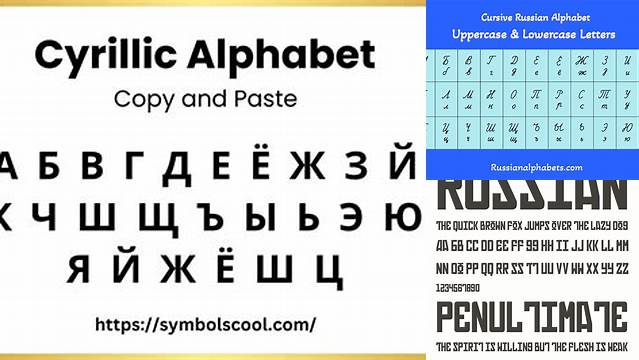
Russian Fonts: Copy & Paste Cyrillic Text Easily
Are you looking to add a touch of Russian flair to your digital content? Whether you're crafting social media posts, designing graphics, or writing documents, using Russian fonts can make your text stand out. But how do you actually use these fonts if you don't have a Russian keyboard or the fonts installed on your system? That's where the magic of "copy and paste" comes in! This comprehensive guide will walk you through everything you need to know about using Russian fonts, even if you're a complete beginner. We'll cover various online tools, character sets, and tips for ensuring your text looks perfect. So, let's dive in and explore the world of Russian fonts together!
Why Use Russian Fonts?
Before we jump into the how-to, let's quickly discuss why you might want to use Russian fonts in the first place. The Cyrillic alphabet, used in Russian and many other Slavic languages, has a distinct and elegant look. Using Russian fonts can instantly add a unique and eye-catching element to your designs. Imagine crafting a social media post with a quote in Russian, or designing a poster with a bold Cyrillic title. It's a fantastic way to add visual interest and cultural richness to your work.
Beyond aesthetics, using Russian fonts can also be practical. If you're creating content for a Russian-speaking audience, using the correct characters is essential for clear communication. It shows respect for the language and culture, and ensures your message is understood correctly. Plus, understanding how to copy and paste Russian characters can be a valuable skill for anyone working with multilingual content.
But where do you find these fonts and how do you use them without installing anything? That's the beauty of online tools! There are numerous websites and resources that allow you to type in English and convert your text into Russian characters, which you can then copy and paste into your desired application. These tools often provide a range of font styles to choose from, allowing you to customize the look and feel of your text. Whether you're aiming for a traditional, elegant style or a modern, bold look, there's a Russian font out there for you. Remember, the key is to find the right tool and understand the basics of the Cyrillic alphabet. Once you've got that down, you'll be able to add a touch of Russian flair to your projects with ease.
Understanding the Cyrillic Alphabet
The foundation of using Russian fonts effectively lies in understanding the Cyrillic alphabet. While some letters may look familiar to those who use the Latin alphabet (like A, O, and K), many are completely different, and some even have different pronunciations than their Latin counterparts. For instance, the Russian letter "В" looks like the Latin "B" but is pronounced like "V." Similarly, "Р" looks like "P" but sounds like "R." Getting to grips with these differences is crucial for accurate transliteration and for ensuring your message is conveyed correctly.
The Cyrillic alphabet consists of 33 letters: 11 vowels, 20 consonants, and 2 letters that don't represent sounds but modify the pronunciation of other letters. These "silent" letters, the soft sign (ь) and the hard sign (ъ), can significantly alter the sound of a word. For example, the soft sign often makes the preceding consonant palatalized, softening its pronunciation.
One common challenge for beginners is transliteration – converting Latin letters into their Cyrillic equivalents. While some letters have direct counterparts (A = А, O = О), others require a bit more thought. There are various transliteration systems, but the most important thing is to be consistent. Online tools can help with this, but having a basic understanding of the alphabet will allow you to double-check the results and make sure everything is accurate.
Beyond individual letters, it's also helpful to understand the basic structure of Russian words and grammar. While you don't need to become fluent overnight, knowing that Russian is a highly inflected language (meaning word endings change depending on grammatical context) can help you avoid common mistakes. When using Russian fonts, pay attention to the overall appearance of the text. Is it legible? Does the font style match the tone of your message? By combining a solid understanding of the alphabet with an eye for design, you can create visually appealing and accurate Russian text. So, take some time to familiarize yourself with the Cyrillic script – it's the key to unlocking the full potential of Russian fonts.
Finding Russian Fonts Online
The internet is a treasure trove of resources when it comes to finding Russian fonts. Numerous websites offer a wide variety of Cyrillic fonts, ranging from traditional and elegant styles to modern and playful designs. The key is knowing where to look and how to evaluate the fonts you find.
One of the best places to start your search is with dedicated font websites like Google Fonts, Font Squirrel, and DaFont. These platforms offer a vast selection of fonts, many of which are free for personal or even commercial use. Google Fonts, in particular, has a growing collection of high-quality Cyrillic fonts, making it an excellent resource for web designers and content creators. Font Squirrel is another great option, known for its curated selection of free fonts with commercial licenses.
When browsing these websites, you can usually filter your search by language or script, making it easy to find Russian fonts specifically. Pay attention to the font previews to get a sense of how the characters look in different sizes and contexts. Consider the overall style and readability of the font – does it match the tone and purpose of your project? Is it easy to read, even at smaller sizes?
In addition to these general font websites, there are also specialized resources that focus specifically on Cyrillic typography. These sites often feature fonts designed by Russian typographers and offer a deeper selection of unique and culturally relevant styles. Exploring these resources can be a great way to discover fonts that you won't find anywhere else.
Before you download any font, be sure to check the licensing information. While many fonts are free to use, some may have restrictions on commercial use or require attribution. Respecting font licenses is essential for ethical design and avoiding legal issues. By taking the time to explore the online world of Russian fonts, you'll be sure to find the perfect typeface for your next project. Remember to consider the style, readability, and licensing of each font, and you'll be well on your way to creating stunning designs with Cyrillic typography. And once you've found the perfect font, the next step is to learn how to use it, which brings us to the essential technique of copy and paste.
Copy and Paste: The Easy Way to Use Russian Fonts
The most straightforward method for using Russian fonts without installing them on your system is through the magic of copy and paste. This technique allows you to use Cyrillic characters from online resources and paste them directly into your documents, social media posts, or design software. It's a simple yet powerful way to add Russian text to your projects, even if you don't have a Russian keyboard layout installed.
So, how does it work? The first step is to find a reliable online tool or website that allows you to type in Cyrillic characters. There are numerous options available, including virtual keyboards, transliteration tools, and online text converters. Virtual keyboards display a Cyrillic keyboard layout on your screen, allowing you to click on the characters you need. Transliteration tools automatically convert Latin letters into their Cyrillic equivalents as you type. Online text converters let you type in English or another language and then translate the text into Russian, which you can then copy and paste.
Once you've chosen your preferred tool, simply type the Russian text you want to use. Double-check your spelling and transliteration to ensure accuracy. Once you're satisfied, select the text using your mouse or keyboard and copy it to your clipboard. You can usually do this by right-clicking and selecting "Copy" or by using the keyboard shortcut Ctrl+C (or Cmd+C on a Mac).
Next, open the application where you want to use the Russian text. This could be a word processor, a design program, a social media platform, or any other text-based application. Place your cursor where you want the Russian text to appear, and then paste it from your clipboard. You can usually paste by right-clicking and selecting "Paste" or by using the keyboard shortcut Ctrl+V (or Cmd+V on a Mac).
Once the text is pasted, you can format it just like any other text. You can change the font, size, color, and other attributes using the formatting options in your application. This is where the fonts you found online come into play! If you've identified a specific Russian font you like, you can select it from the font menu in your application to apply it to your pasted text. Remember, the appearance of the text will depend on the fonts that are installed on your system. If you paste text that uses a font you don't have installed, your application will usually substitute a default font.
Copy and paste is a versatile technique that can be used in a wide range of situations. Whether you're writing a quick message to a friend or creating a professional design, it's a convenient way to incorporate Russian text into your work. With a little practice, you'll be copying and pasting Cyrillic characters like a pro!
Useful Tools and Websites for Russian Copy Paste
To effectively copy and paste Russian fonts, you'll need access to reliable tools and websites that can generate Cyrillic characters. Fortunately, the internet offers a plethora of options, each with its own strengths and features. Let's explore some of the most useful resources available.
1. Online Virtual Keyboards: Virtual keyboards are a fantastic option for those who want to type in Cyrillic directly without installing a Russian keyboard layout on their computer. These keyboards display a visual representation of the Cyrillic alphabet on your screen, allowing you to click on the characters you need. Several websites offer free virtual Russian keyboards, including Branah.com and Gate2Home.com. These keyboards are usually very easy to use – simply click on the letters to type, and then copy and paste the text into your desired application.
2. Transliteration Tools: Transliteration tools automatically convert Latin letters into their Cyrillic equivalents as you type. This can be a much faster way to generate Russian text if you're already familiar with the Latin alphabet. Websites like translit.net offer robust transliteration tools that support various transliteration systems. Simply type in Latin letters, and the tool will automatically convert them into Cyrillic. You can then copy and paste the resulting text.
3. Online Text Converters: If you need to translate entire sentences or paragraphs into Russian, online text converters can be a lifesaver. These tools use machine translation algorithms to convert text from one language to another, including English to Russian. While the translations may not always be perfect, they can provide a good starting point for your text. Google Translate is a popular option for this, but there are also other specialized translation tools available online. Once you've translated your text, you can copy and paste it into your application.
4. Character Map: Most operating systems include a character map application that allows you to browse and copy special characters, including Cyrillic letters. On Windows, you can find the Character Map by searching for it in the Start Menu. On macOS, you can access it through the Input Sources menu in System Preferences. The Character Map can be a useful tool for finding and copying individual Cyrillic characters that you may not be able to type using other methods.
5. Social Media Cyrillic Generators: There are also specialized tools designed for creating stylish Cyrillic text for social media. These generators often offer a range of fancy fonts and text effects that can make your posts stand out. Websites like LingoJam and CoolSymbol.com have social media text generators that include Cyrillic fonts. These tools can be a fun way to add a unique touch to your social media presence. By exploring these various tools and websites, you'll be well-equipped to generate and copy-paste Russian text for any purpose. Experiment with different options to find the ones that best suit your needs and workflow.
Tips for Using Russian Fonts Effectively
Using Russian fonts effectively goes beyond just copying and pasting. To truly make your Cyrillic text shine, there are several tips and best practices to keep in mind. These tips will help you ensure your text is not only visually appealing but also grammatically correct and culturally appropriate.
1. Choose the Right Font for the Occasion: Just like with Latin fonts, different Russian fonts convey different tones and styles. A formal document might call for a classic, elegant Cyrillic font, while a social media post might benefit from a more playful or modern typeface. Consider the context and purpose of your text when selecting a font. Think about the message you want to convey and choose a font that aligns with that message. A bold, sans-serif font might be suitable for a headline, while a more delicate, serif font might be better for body text.
2. Pay Attention to Kerning and Spacing: Kerning refers to the spacing between individual letters, while spacing refers to the overall space between words and lines. Proper kerning and spacing are crucial for readability. Cyrillic letters can sometimes have unique shapes that require careful attention to kerning. If the letters are too close together, the text can look crowded and difficult to read. If they're too far apart, the text can look disjointed. Most design software and word processors have kerning and spacing controls that you can use to fine-tune the appearance of your text. Experiment with different settings until you achieve a balanced and legible look.
3. Ensure Correct Transliteration: If you're using a transliteration tool, double-check the results to ensure they're accurate. As mentioned earlier, some Latin letters don't have direct Cyrillic equivalents, and different transliteration systems may produce different results. It's always a good idea to compare the transliterated text with a dictionary or online resource to make sure it's correct. If you're unsure about a particular word or phrase, consider consulting a native Russian speaker for assistance.
4. Be Mindful of Cultural Context: Using Russian fonts can be a great way to add a cultural touch to your work, but it's important to be mindful of cultural context. Avoid using Cyrillic fonts in ways that could be seen as disrespectful or insensitive. For example, using a Russian font to write a derogatory message or to misrepresent Russian culture would be inappropriate. When in doubt, err on the side of caution and consider the potential impact of your choices on others.
5. Test Your Text in Different Applications: The way a font appears can vary slightly depending on the application you're using. It's a good idea to test your Russian text in different programs to make sure it looks consistent across platforms. Check the font size, spacing, and overall appearance to ensure everything looks as intended. This is especially important if you're creating content for the web, as different browsers may render fonts slightly differently.
By following these tips, you can ensure that your Russian text is not only visually appealing but also accurate, legible, and culturally appropriate. Using Russian fonts effectively is a skill that takes practice, but the results are well worth the effort. With a little attention to detail, you can add a touch of Russian flair to your projects and communicate effectively with Russian-speaking audiences.
Using Russian fonts can add a unique and elegant touch to your creative projects. By understanding the Cyrillic alphabet, utilizing online tools for copy and paste, and following the tips outlined in this guide, you can effectively incorporate Russian text into your designs and communications. Whether you're crafting social media posts, designing graphics, or writing documents, mastering the art of using Russian fonts will undoubtedly enhance your work.
The ease of copying and pasting Cyrillic characters from online resources opens up a world of possibilities. You no longer need to be fluent in Russian or have a Russian keyboard to use these beautiful fonts. The various online virtual keyboards, transliteration tools, and text converters make the process accessible to everyone. Remember to choose the right font for the occasion, pay attention to kerning and spacing, and ensure correct transliteration for the best results.
More importantly, be mindful of the cultural context when using Russian fonts. Using them respectfully and appropriately will add value to your work and show your audience that you care about cultural sensitivity. By testing your text in different applications, you can also guarantee a consistent and professional look across various platforms.
So, go ahead and experiment with Russian fonts! Explore the vast selection available online, find the styles that resonate with you, and start adding a touch of Cyrillic elegance to your projects. With practice and attention to detail, you'll become proficient in using Russian fonts, creating visually stunning and culturally rich content. Happy designing!